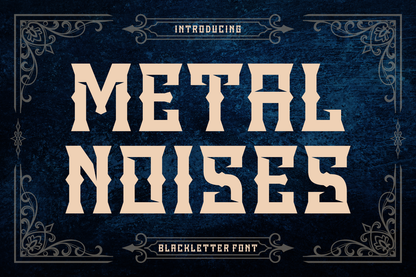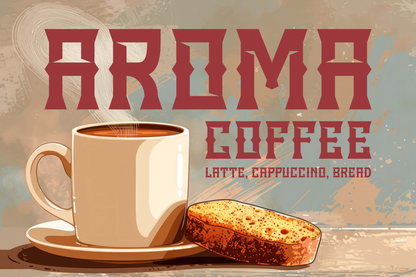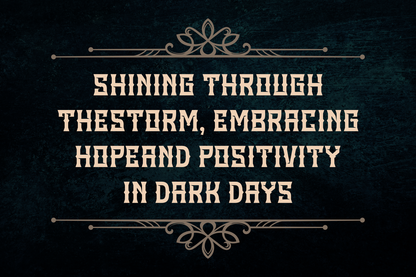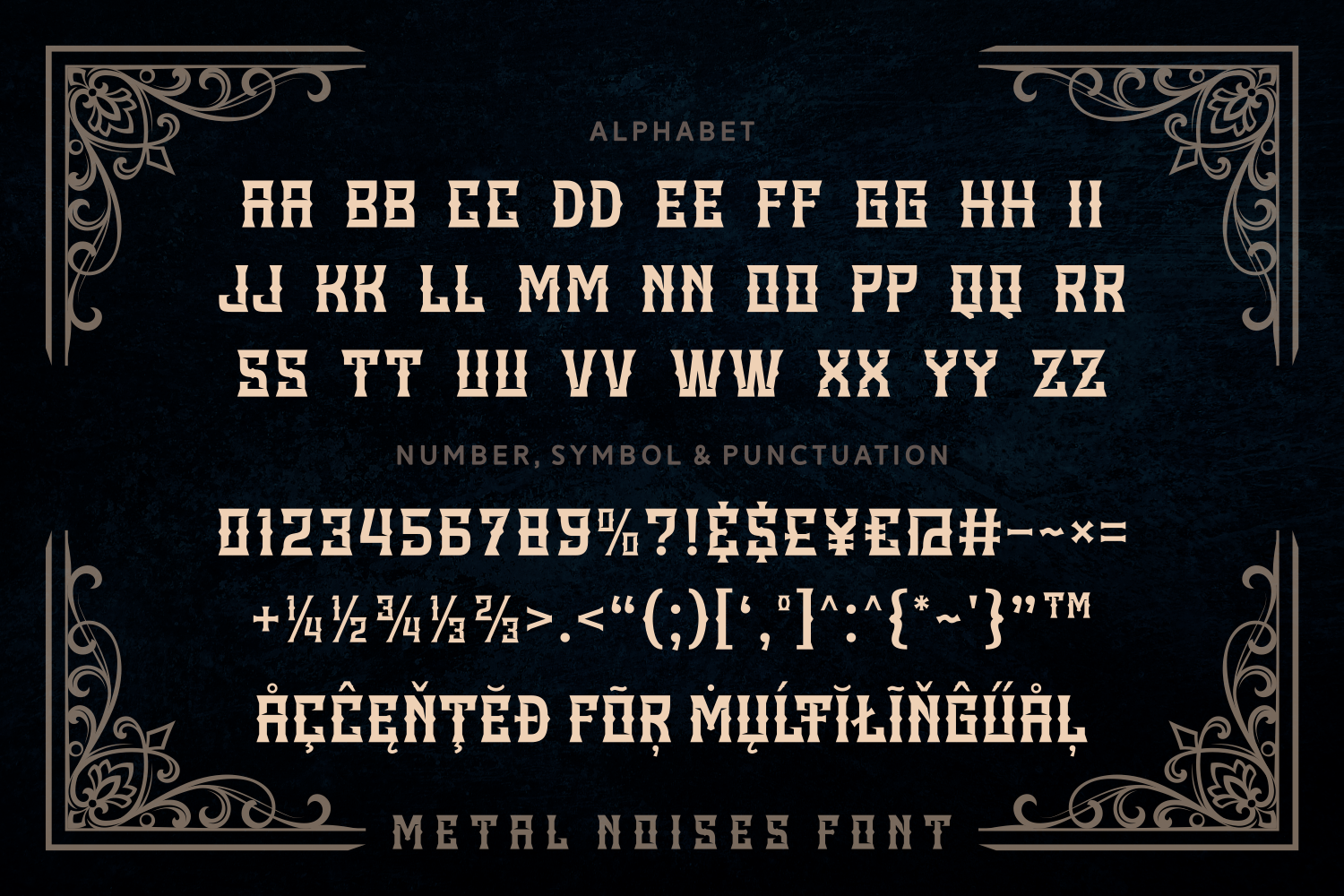
Metal Noises is a heavy, aggressive blackletter font crafted for intensity. With jagged strokes and bold, condensed spacing, it’s perfect for metal band logos, hardcore posters, or anything that needs to scream attitude and power.